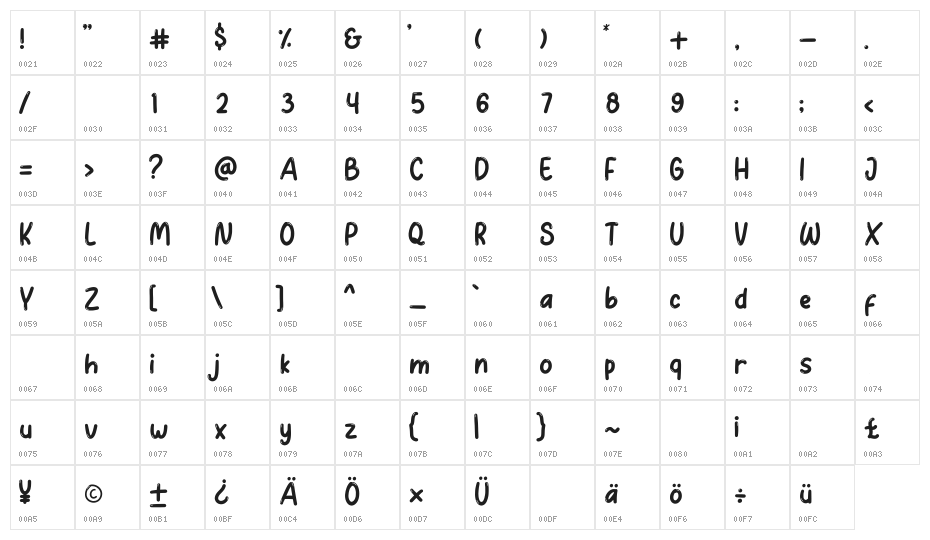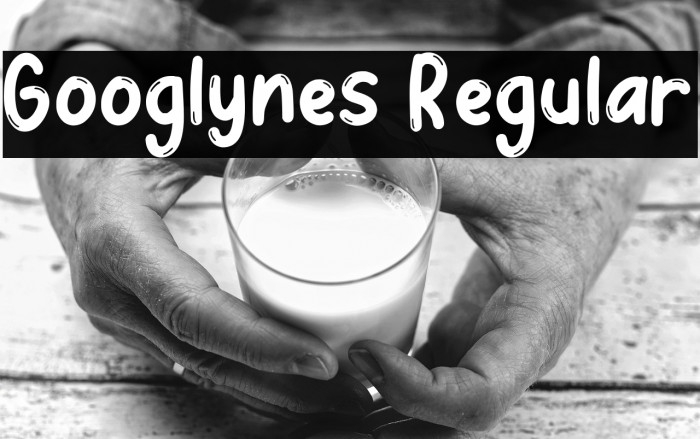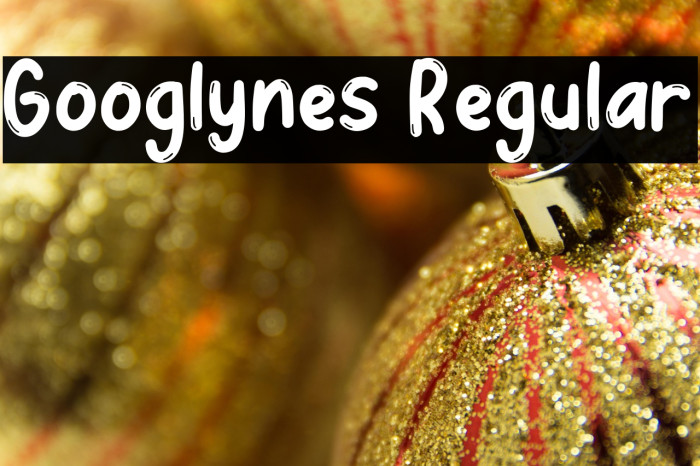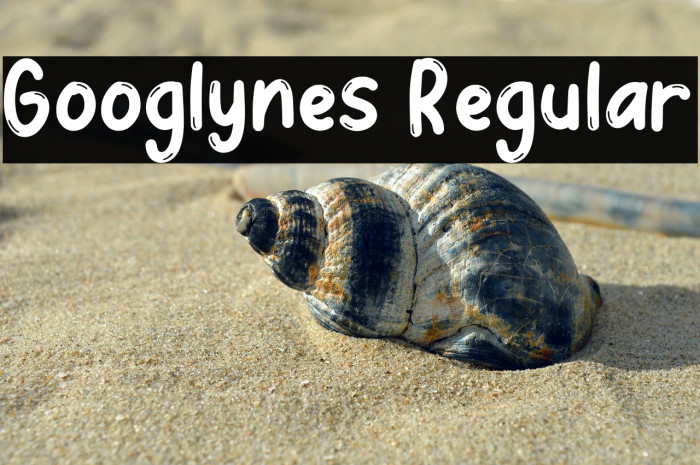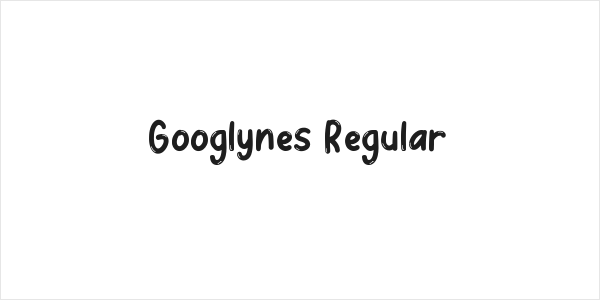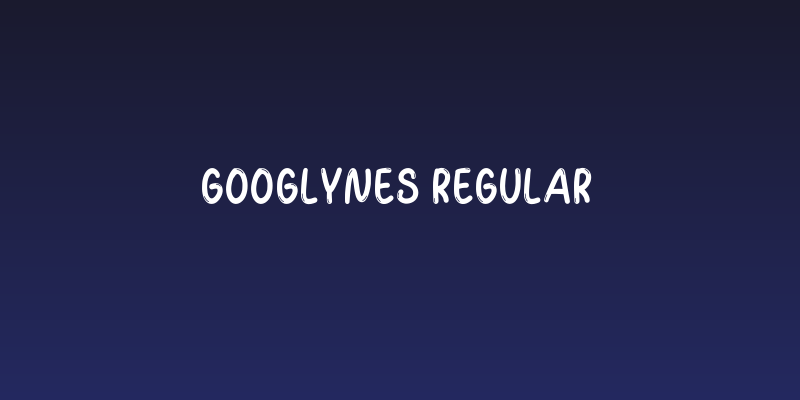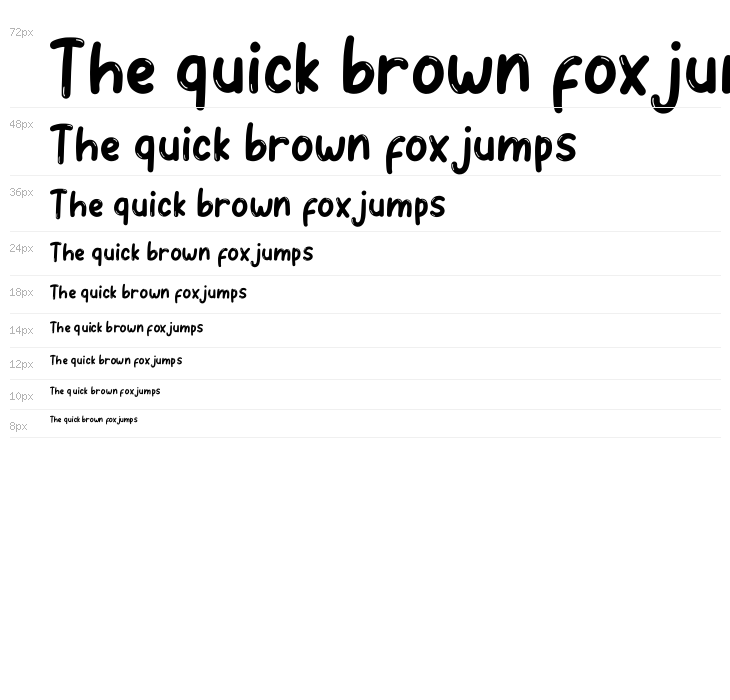
Googlynes Regular Font
Googlynes Regular Description
This playful and whimsical font features rounded, bubbly characters that convey a sense of fun and creativity. The strokes are thick and consistent, giving the font a bold appearance. The letters have a hand-drawn quality, with slight variations that add to its charm. The overall design is casual and approachable, making it ideal for projects that require a friendly and informal touch. The numbers and special characters maintain the same playful style, ensuring consistency across all text elements.
| Overall Style | Playful, Whimsical |
| Proposed Projects | Ideal for children's books, playful branding, casual invitations, and creative posters. |